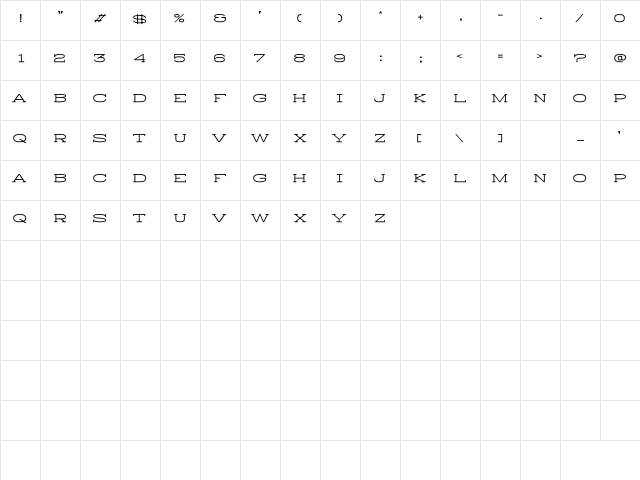
History Repeating Horizontal Regular
| Foundry | Starving-4Entertainment |
| Designer | Darren Rigby |
Design Context for History Repeating Horizontal Typeface
History Repeating Horizontal offers clean, dependable letterforms without strong stylistic allegiance, making it a practical choice for designers who need flexibility.